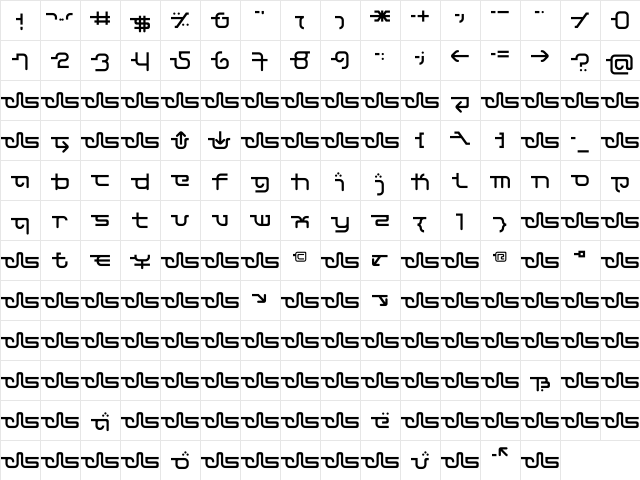
DS Yogasaan Advanced Regular
Design Context for DS Yogasaan Advanced Typeface
DS Yogasaan Advanced takes a measured approach to typography — its balanced proportions and neutral character make it a reliable workhorse for both digital and print work.